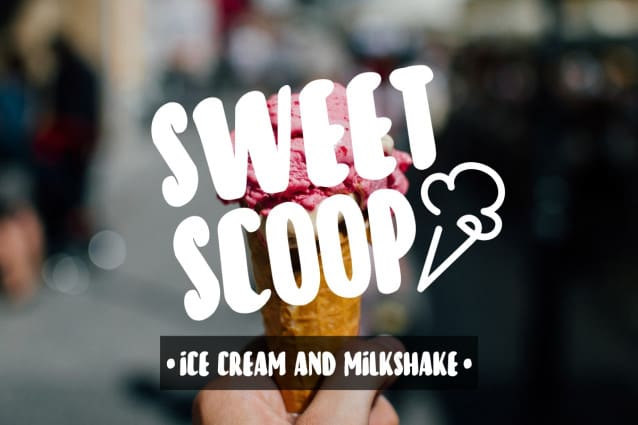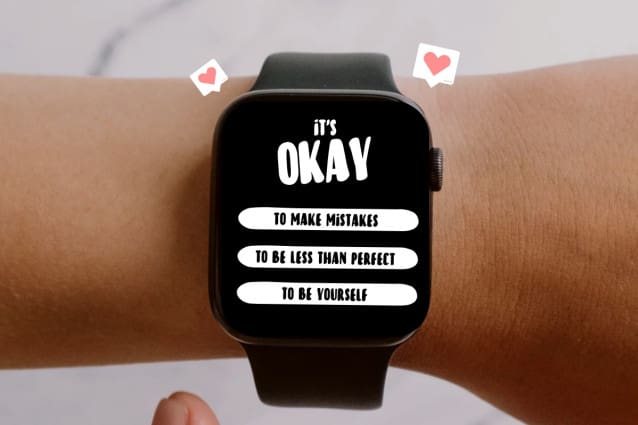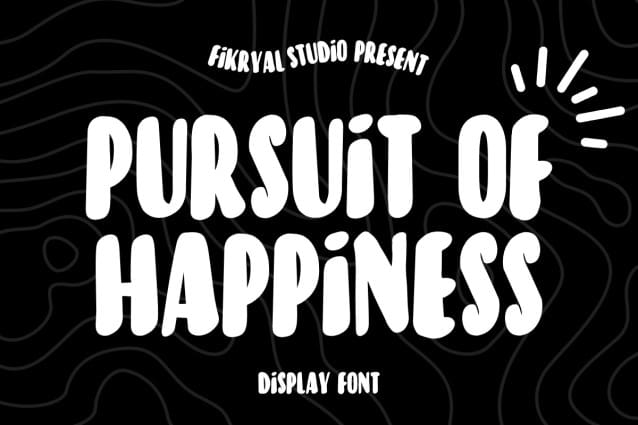
Pursuit Of Happiness Font
Pursuit Of Happiness Font is a charming and energetic handwritten display font designed to make your projects stand out. With its playful all-caps style and organic handwritten strokes, this font is perfect for adding personality to branding, packaging, posters, quotes, and social media graphics.